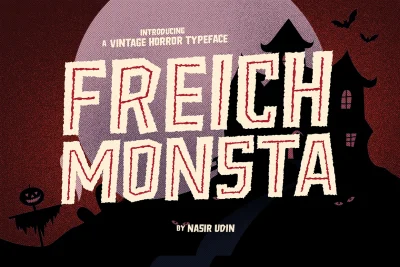
Freich Monsta - Vintage Horror Fonts
Freich Monsta Font
Freich Monsta Vintage Horror Fonts is perfect for horror movie titles, Halloween marketing campaigns, spooky event invitations, haunted attraction branding, vintage horror comic books, gothic band merchandise, creepy game interfaces, monster-themed packaging, and eerie entertainment materials.
What makes Freich Monsta Font exciting is its spine-chilling ability to evoke classic monster movie aesthetics through masterfully crafted letterforms that channel the golden age of horror cinema. The font features dramatically distressed shapes with vintage horror elements that instantly transport viewers to the atmospheric world of classic monster films and gothic storytelling. Its authentically aged appearance and menacing character details make it perfect for brands that want to communicate thrilling fear, nostalgic horror, and the timeless appeal of classic monster culture while creating unforgettable experiences that celebrate the art of frightening entertainment.
Freich Monsta Vintage Horror Fonts family includes various terrifying weights and styles such as Regular, Bold, and distressed variations, often featuring monster-inspired alternates and horror decorative elements. The family may include spooky symbols, gothic ornaments, and vintage horror ligatures that enhance the font's frightening aesthetic, providing designers with comprehensive options for creating authentically scary typographic compositions that capture the essence of classic horror entertainment.
This thrillingly terrifying typeface collection has gained popularity among horror entertainment brands and spooky seasonal businesses seeking authentic vintage horror typography solutions. Freich Monsta Font provides an excellent opportunity to unleash this monstrous font collection before investment. The font's character set includes horror symbols and monster-themed glyphs that work perfectly for entertainment and seasonal horror industry applications. Whether you're designing for haunted attractions, horror film festivals, or Halloween specialty retailers, Freich Monsta Font delivers the spine-tingling authenticity your project demands. Its versatile nature makes it suitable for various horror applications including escape rooms, gothic fashion brands, horror gaming companies, and vintage monster collectibles, ensuring your typography choices communicate classic horror charm and frightening entertainment while creating memorable brand experiences that celebrate the enduring appeal of monster culture through its distinctively terrifying and authentically vintage horror visual character.